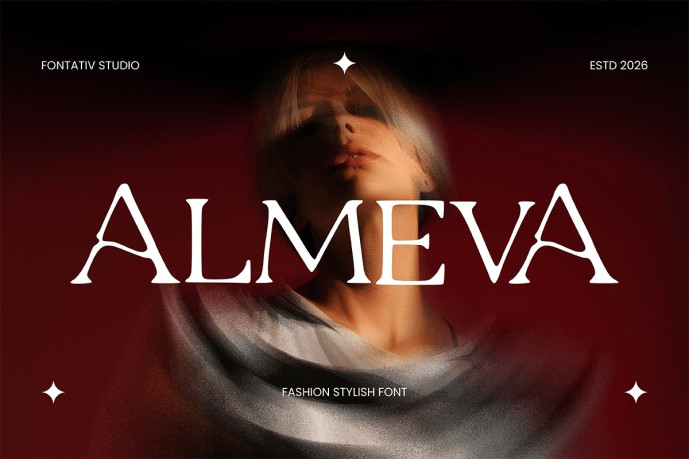
Almeva Font
Designer: Fontativ
Almeva Font is a fashion stylish font designed to bring elegance, confidence, and modern sophistication to your creative projects. Featuring refined serif letterforms with graceful proportions and distinctive details, this font is perfect for fashion branding, luxury editorials, beauty campaigns, magazine covers, lookbooks, cosmetics packaging, invitations, and premium marketing materials. Its stylish appearance creates a high-end aesthetic that captures attention while maintaining excellent readability.
Crafted for designers seeking a timeless yet contemporary look, Almeva works beautifully for logos, headlines, social media content, advertising, product packaging, and visual identities. The font delivers a polished and fashionable character that enhances both minimalist and luxurious designs, making it an ideal choice for brands that value elegance, style, and sophistication.